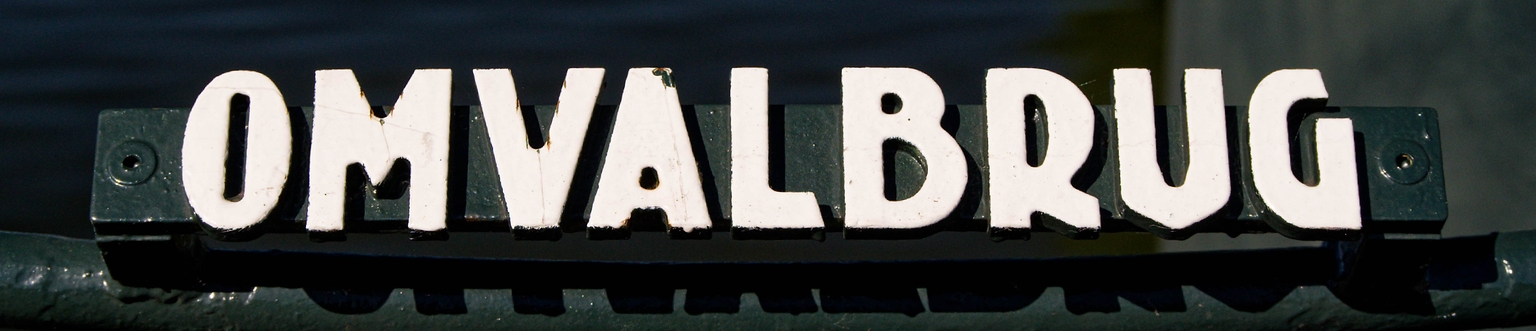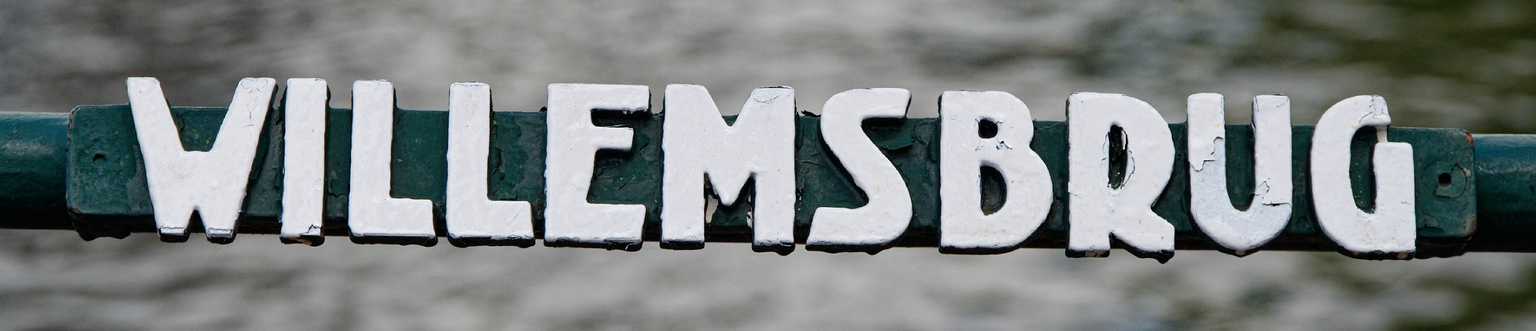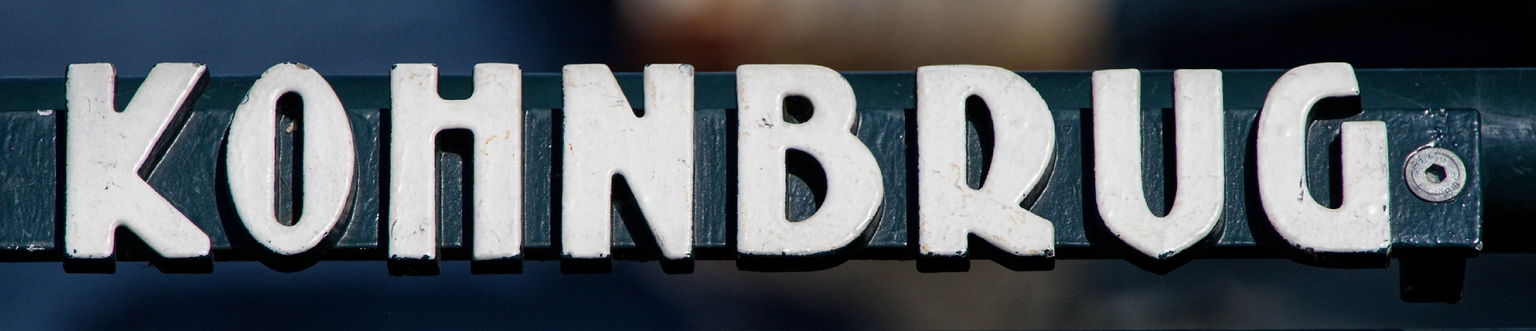
Kurversbrug
Kurversbrug is a typographic revival of one of Amsterdam’s most iconic visual features: the iron bridge nameplates that grace the city’s waterways. Designed by Ramiro Espinoza in 2001, this typeface is based on the distinctive lettering style likely created by Anton Kurvers (1889–1940), an artist associated with the Amsterdam School. With its heavy, low-contrast strokes and idiosyncratic forms, the original lettering reflects the expressive spirit of early 20th-century Dutch design.
Omnipresent across the Dutch capital, these nameplates form a unique and cohesive part of Amsterdam’s urban identity. Kurversbrug captures their character with precision and respect, translating physical iron letters into a digital typeface that maintains the charm, rhythm, and slightly irregular geometry of the originals.
More than just a revival, Kurversbrug is a tribute to a vernacular style that has endured for nearly a century. Ideal for signage, editorial use, and branding, it brings a piece of Amsterdam’s soul into the world of contemporary design.